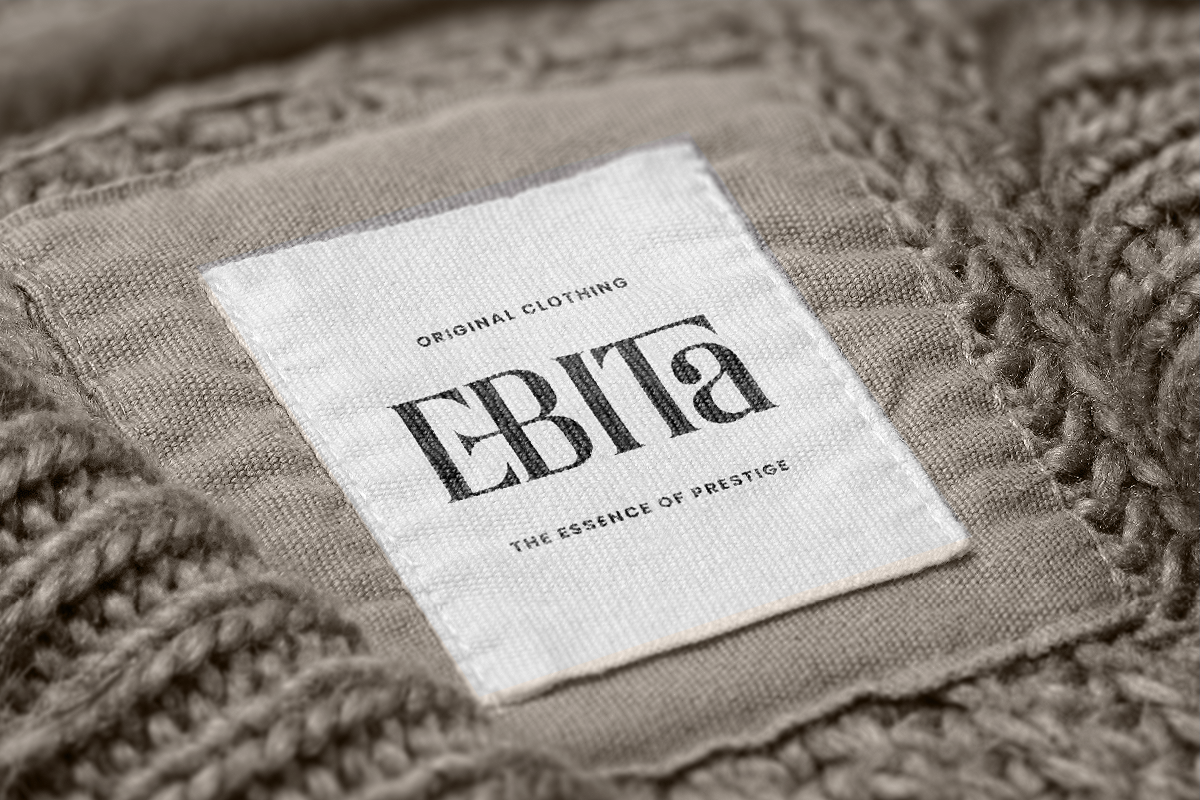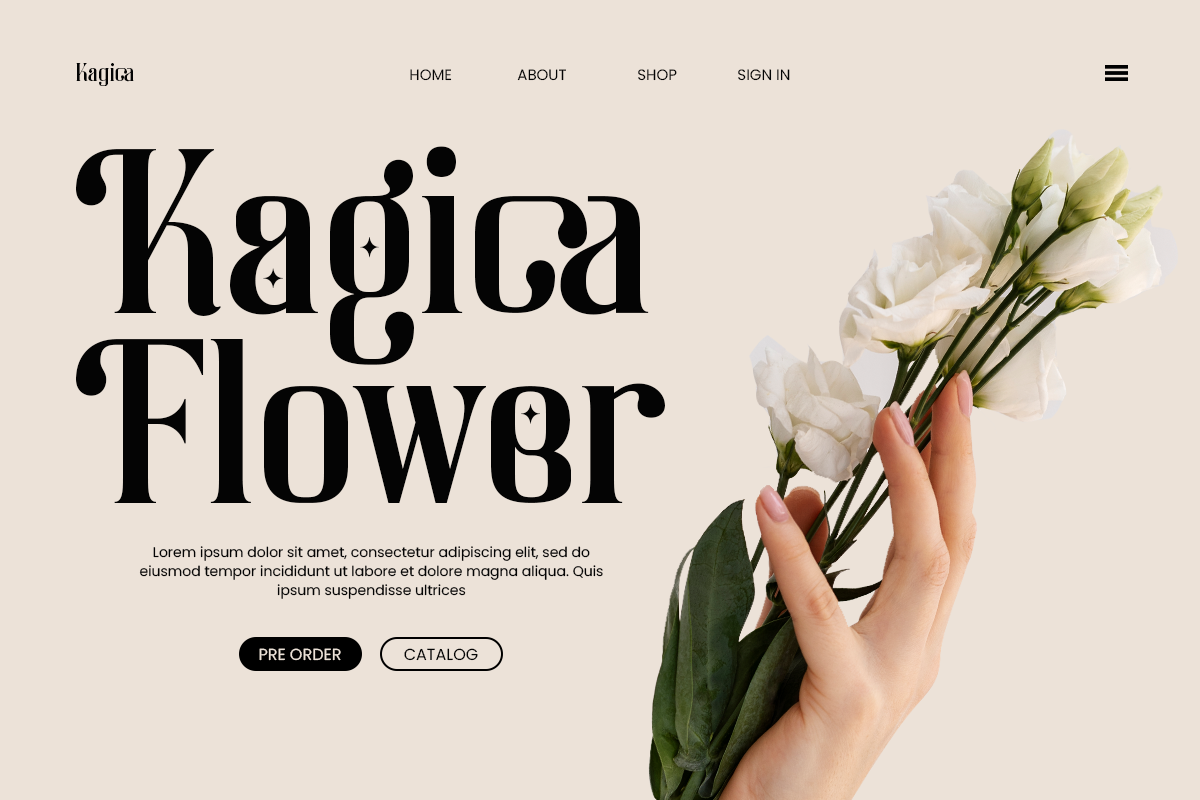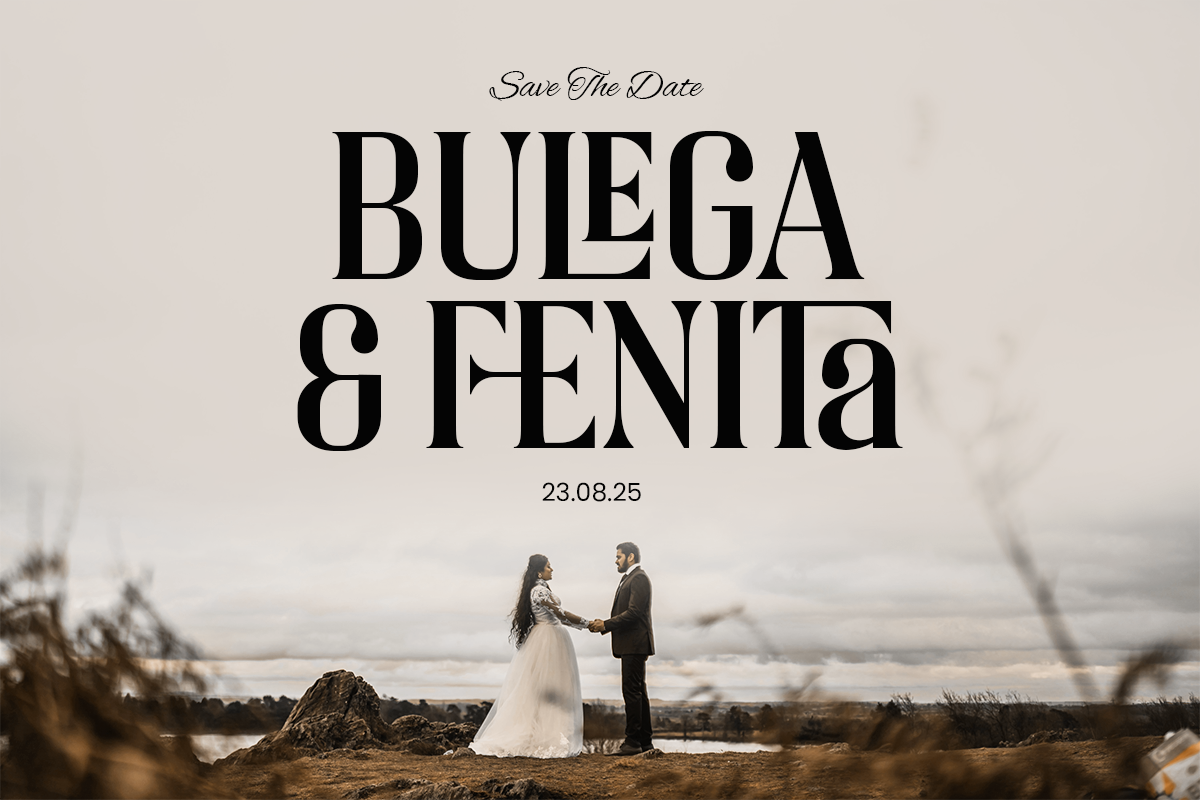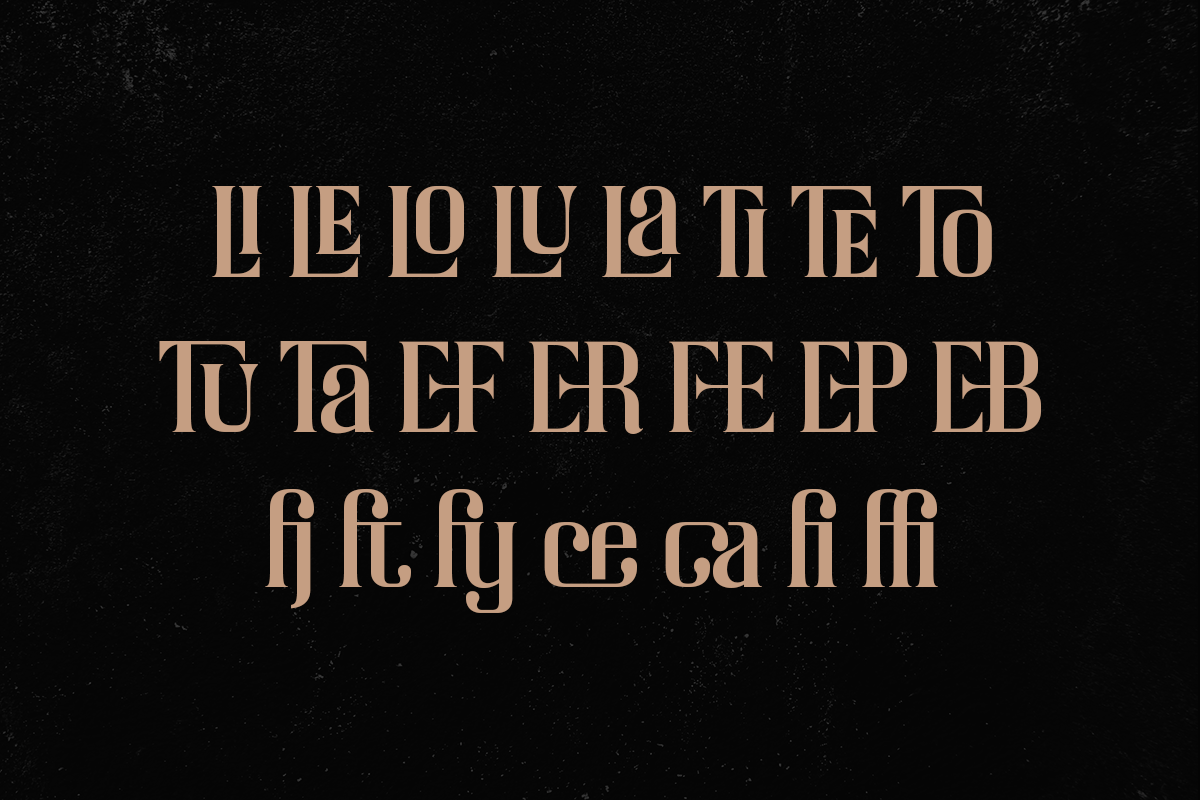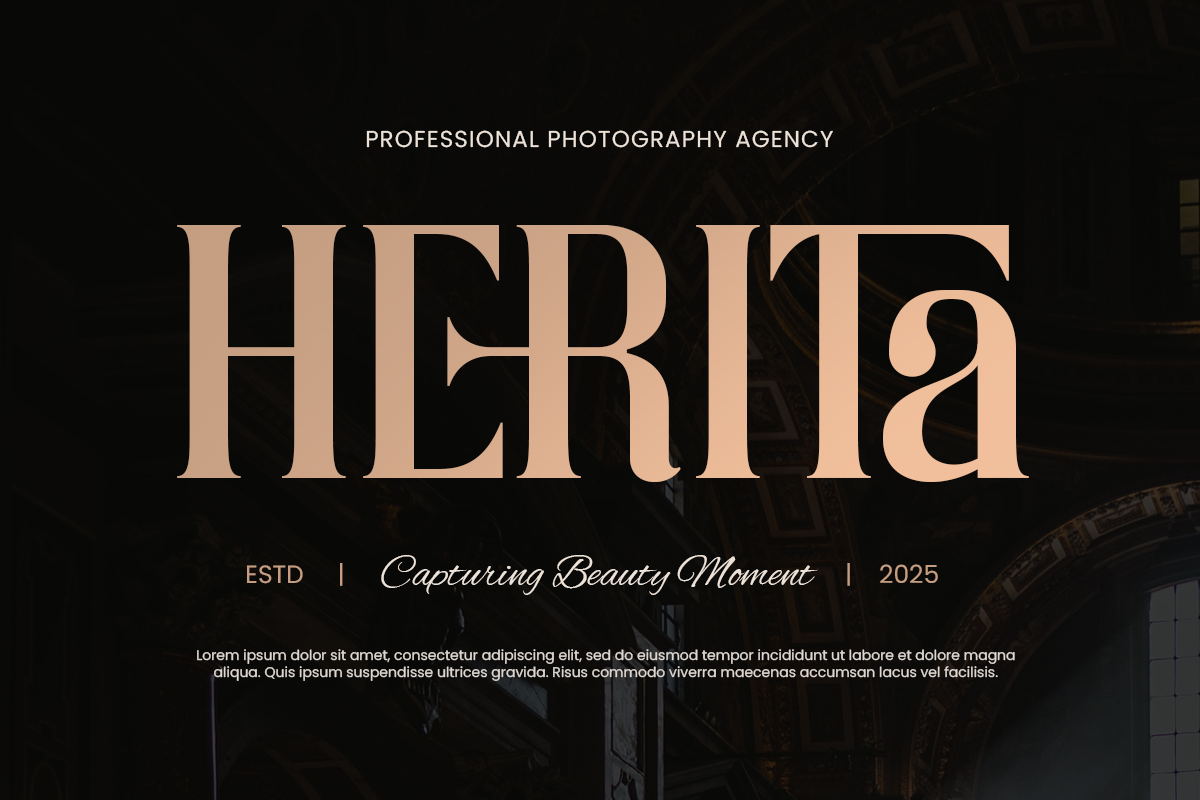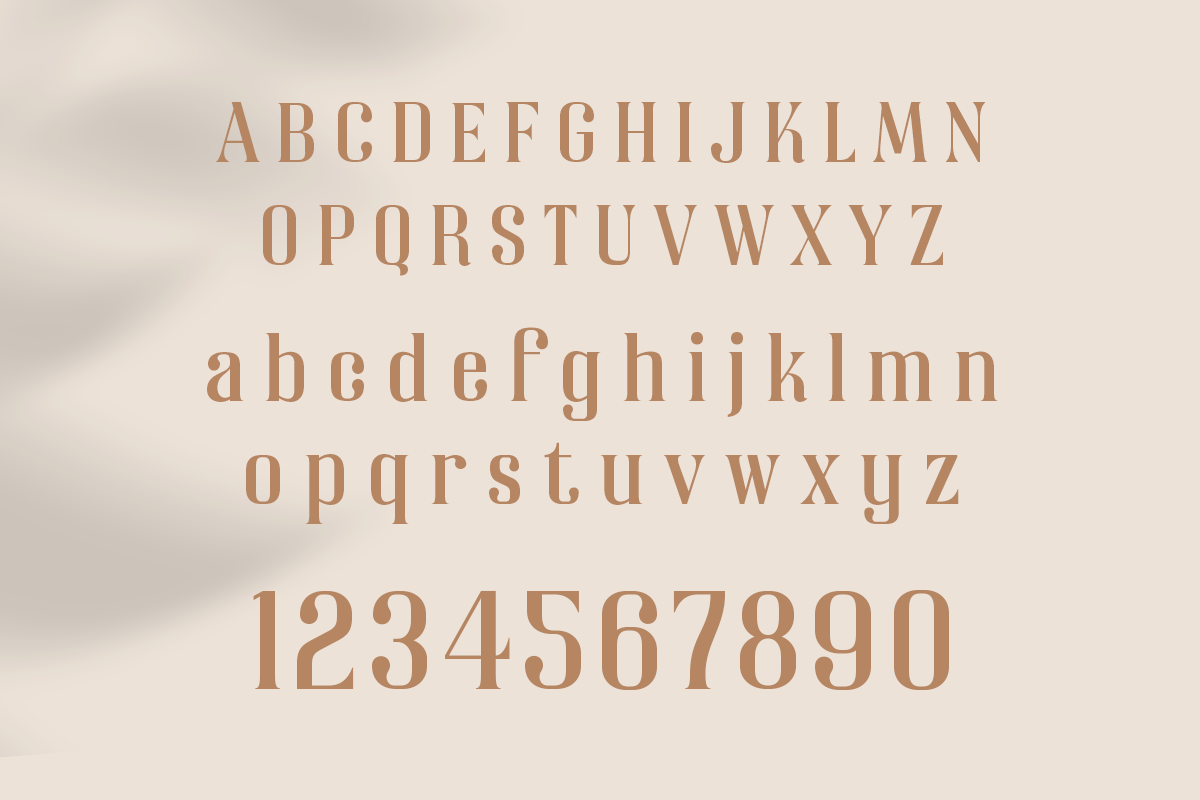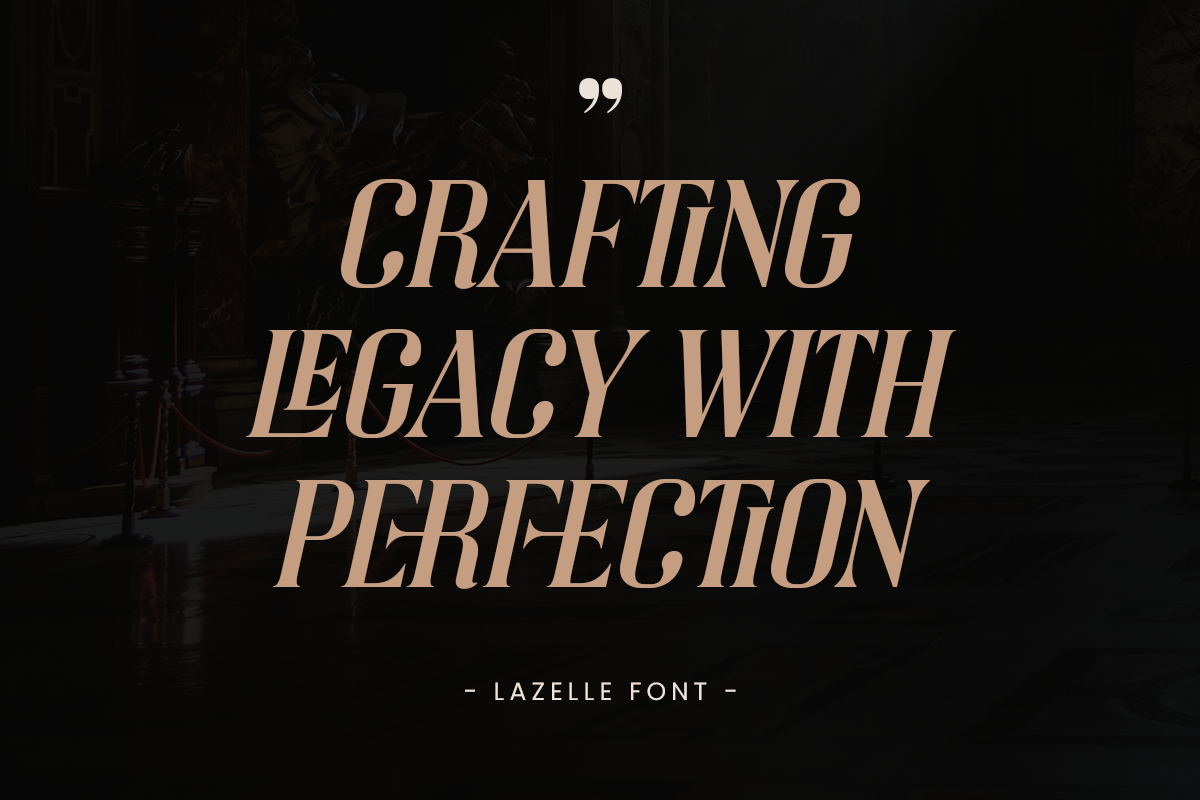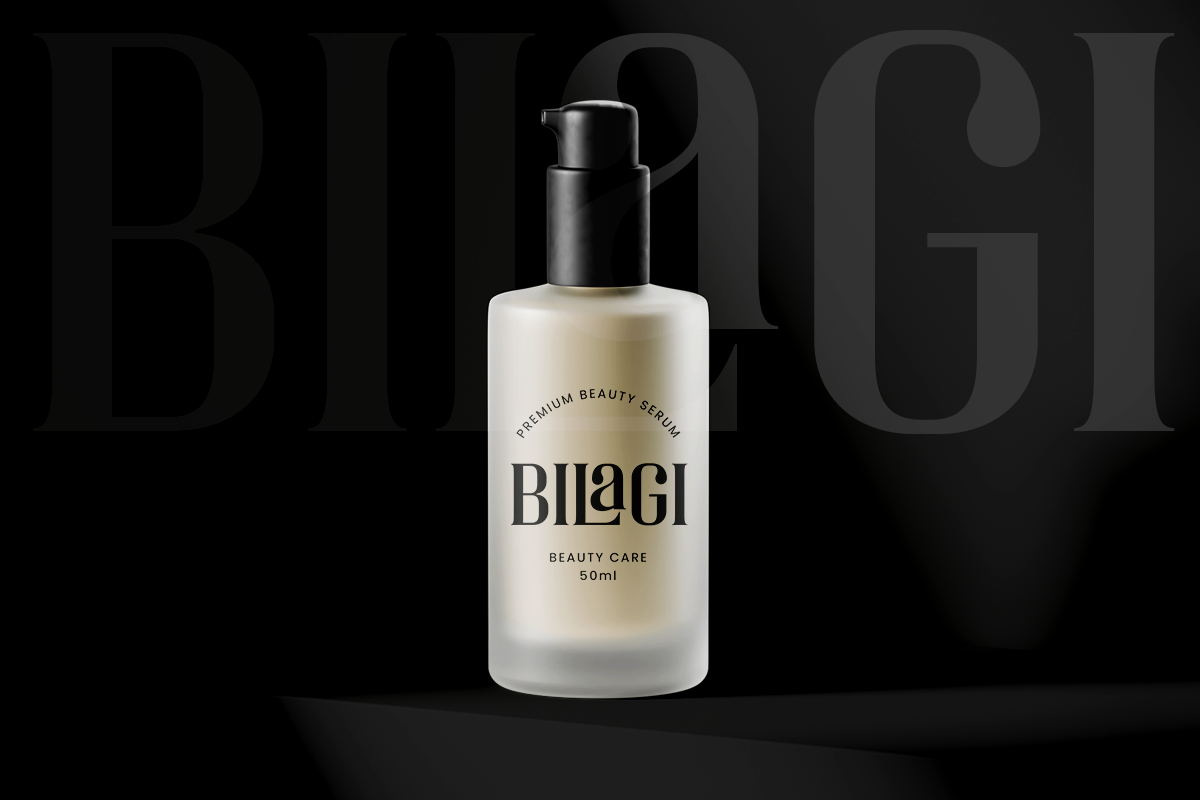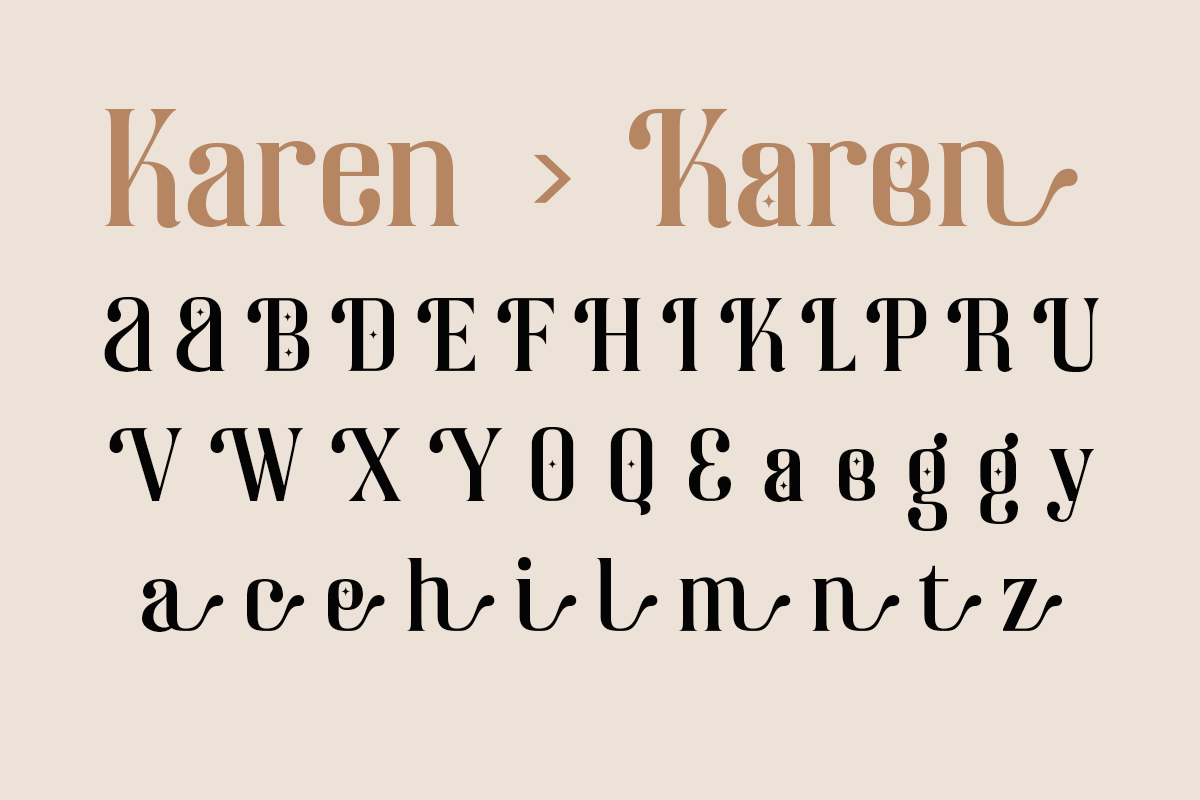
Lazelle Serif with Bold Elegance
Lazelle is a modern serif font designed to captivate with contrast. Featuring bold thick strokes alongside delicate thin lines, combined with unique proportions of tall and short characters, Lazelle delivers a sophisticated rhythm and visual intrigue.
Ideal for magazines, wedding stationery, premium products, and artistic projects, Lazelle brings character and elegance to every detail. Its expressive style shines in both minimal layouts and bold compositions—making it a must-have for designers who value creativity with class.
- uppercase and lowercase
- numerals and punctuation
- OpenType features (ligatures and alternates)
Give your designs a touch of timeless elegance with Lazelle